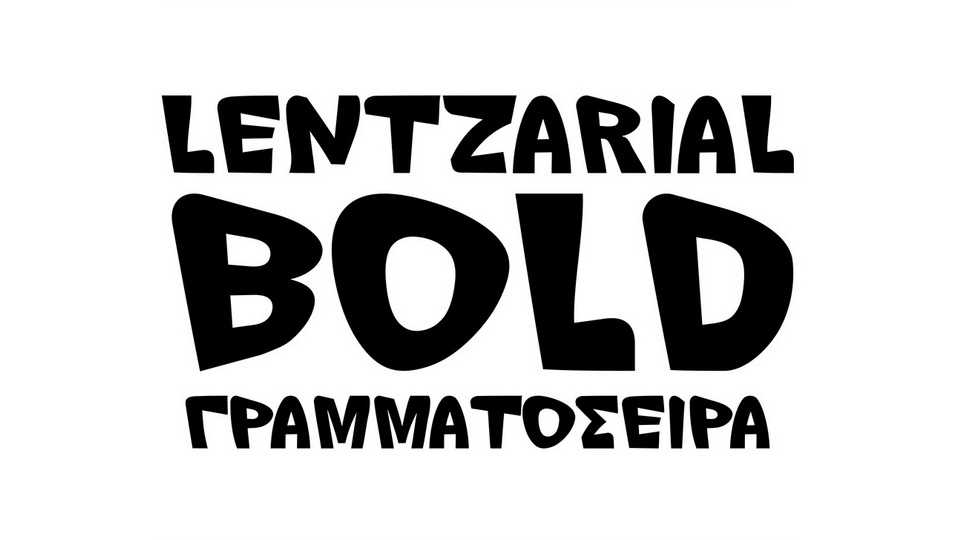
Download Lentzarial Bold font, a hand lettered typeface with a strong and cheerful personality. Lentzarial Bold font is designed to create the look of stunning custom hand-lettering, posters, titles and prints.
Designer: Christos Lentzaris